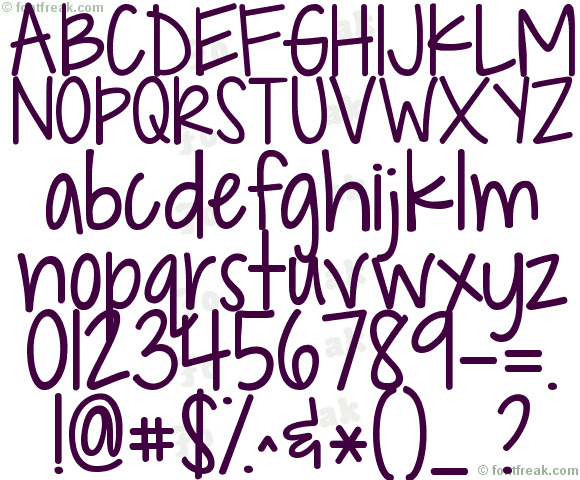
KG Drops of Jupiter
About KG Drops of Jupiter
KG Drops of Jupiter, designed by Kimberly Geswein, is a captivating handwritten font that radiates a sense of warmth and creativity. This unique typeface features smooth, flowing letterforms with a playful, yet elegant flair. The strokes are characterized by a moderate weight and subtle contrast, which lend a friendly touch to any text. The spacing is well-balanced, ensuring readability while maintaining the organic feel of handwritten text. The design incorporates gentle curves and loops, enhancing its whimsical appearance, making it a delightful choice for a variety of design projects.
This font is an excellent fit for wedding invitations, where its charming style can evoke emotion and warmth. It can also enhance greeting cards, adding a personal touch that resonates with recipients. Additionally, KG Drops of Jupiter is perfect for branding small businesses, particularly those in the arts or crafts sectors, as it conveys creativity and approachability. Its playful nature makes it suitable for children’s book covers and playful marketing materials. Content creators will find this font ideal for social media graphics, ensuring their posts stand out with a unique handwritten character.
Targeting graphic designers, small business owners, and content creators alike, KG Drops of Jupiter offers a versatile option for those looking to add a personal touch to their projects. The font’s free availability as a freeware makes it accessible for anyone wanting to infuse their designs with a sense of individuality.
In a crowded marketplace of fonts, KG Drops of Jupiter stands out with its charming, handwritten style that balances elegance and playfulness. Its versatility across various applications makes it an essential addition to any designer’s toolkit, and the KG Drops of Jupiter font free download opens up creative possibilities for all.